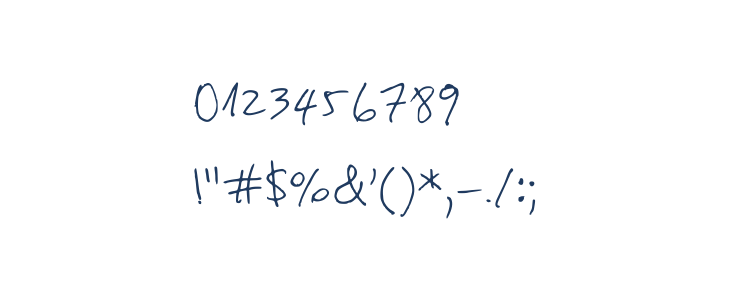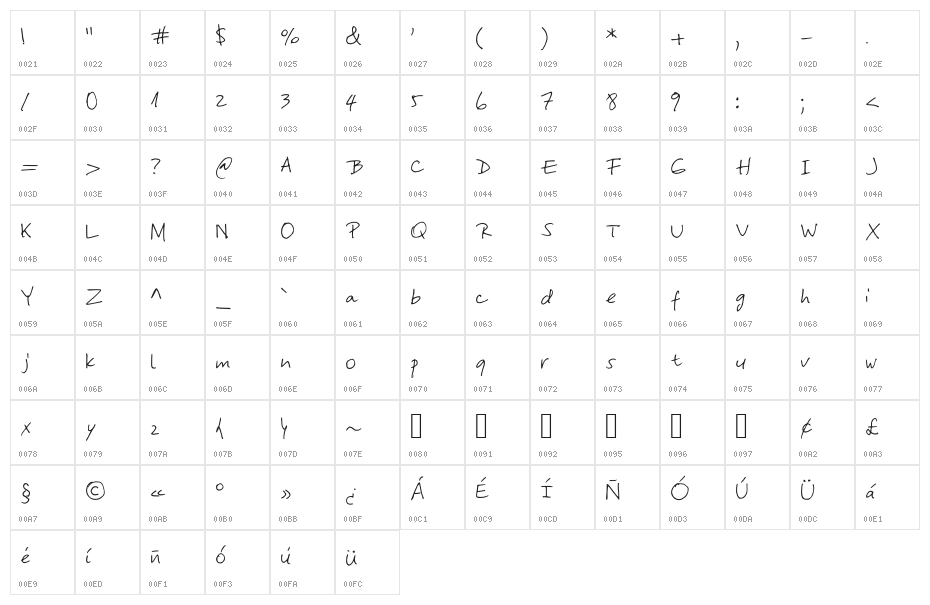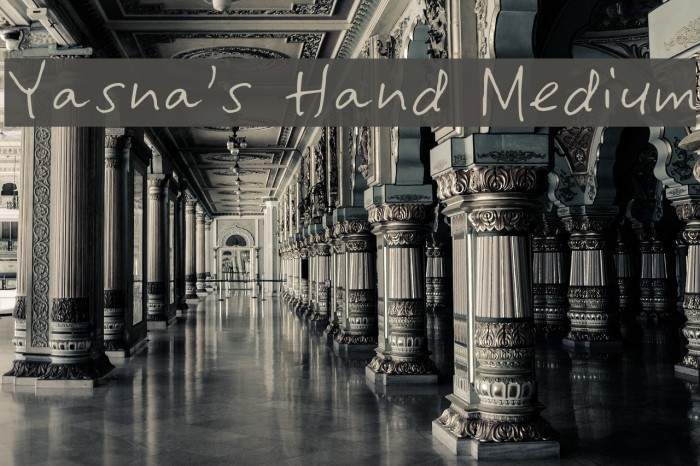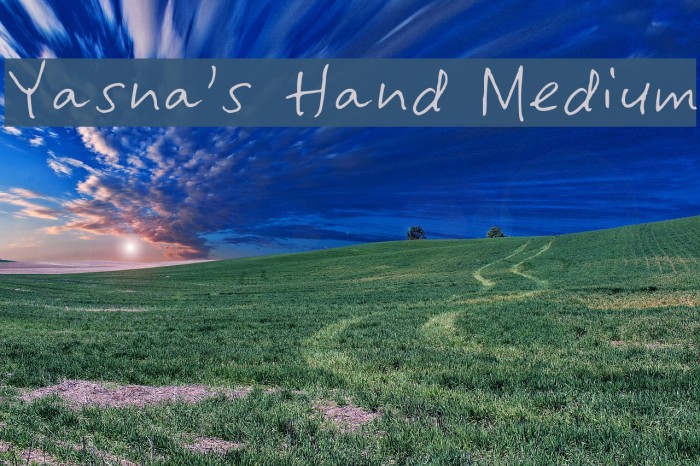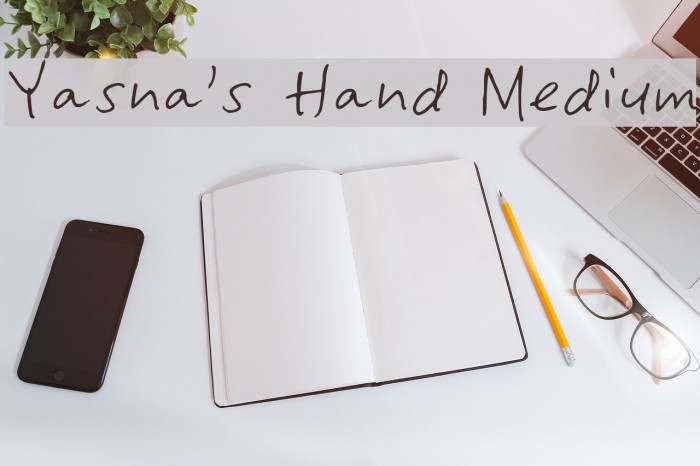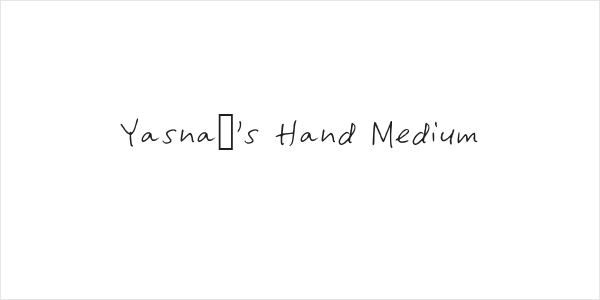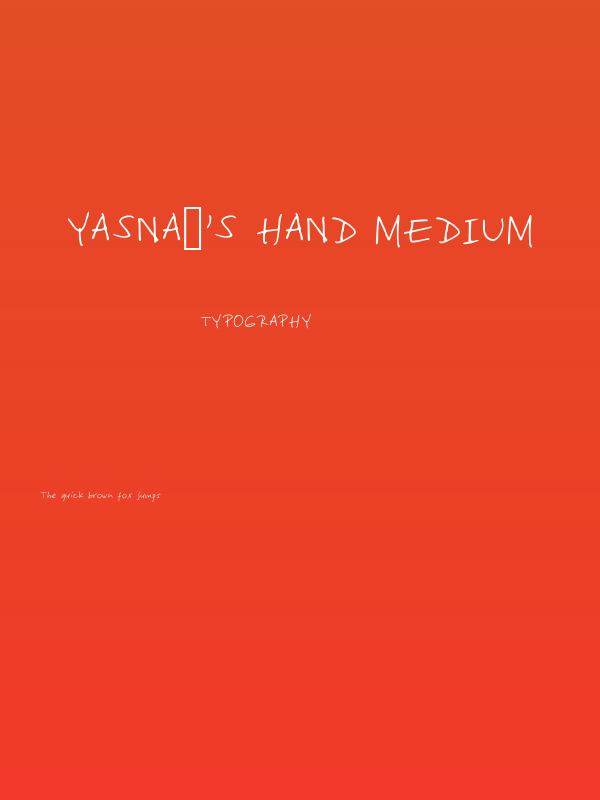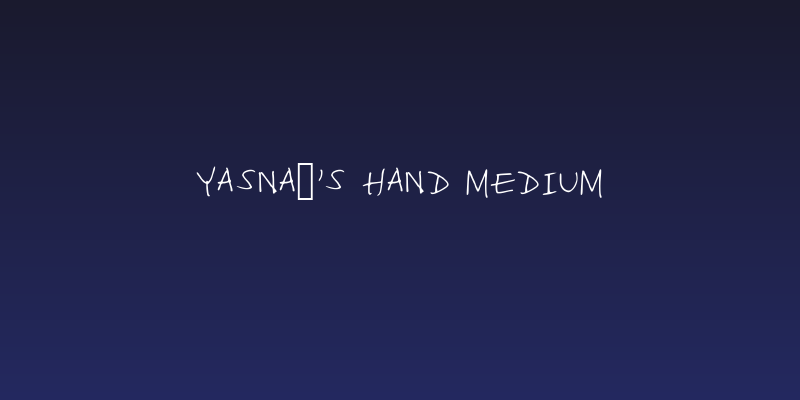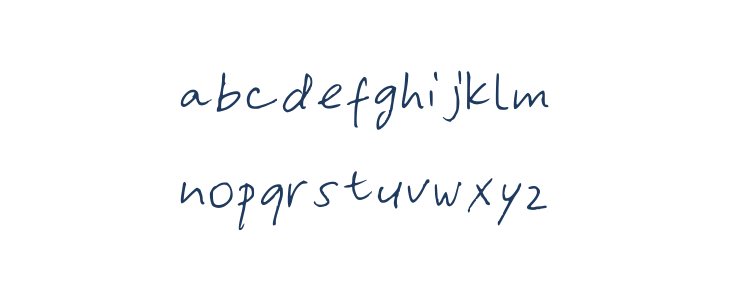
Yasna's Hand Medium Font
Yasna's Hand Medium Description
This font exudes a casual, handwritten style that mimics natural penmanship with a slight slant and irregular strokes, giving it an authentic and personal touch. The characters are slightly uneven, adding to the charm and warmth of the design. Uppercase letters maintain a consistent height, while lowercase letters vary slightly, enhancing the handwritten feel. The numerals and special characters are crafted with the same informal style, ensuring a cohesive look across all text elements. This font is perfect for projects that require a personal, approachable, and friendly aesthetic.
| Use Case | Logos, Invitations, Greeting cards |
| Proposed Projects | Ideal for personal notes, invitations, greeting cards, and informal branding projects. |